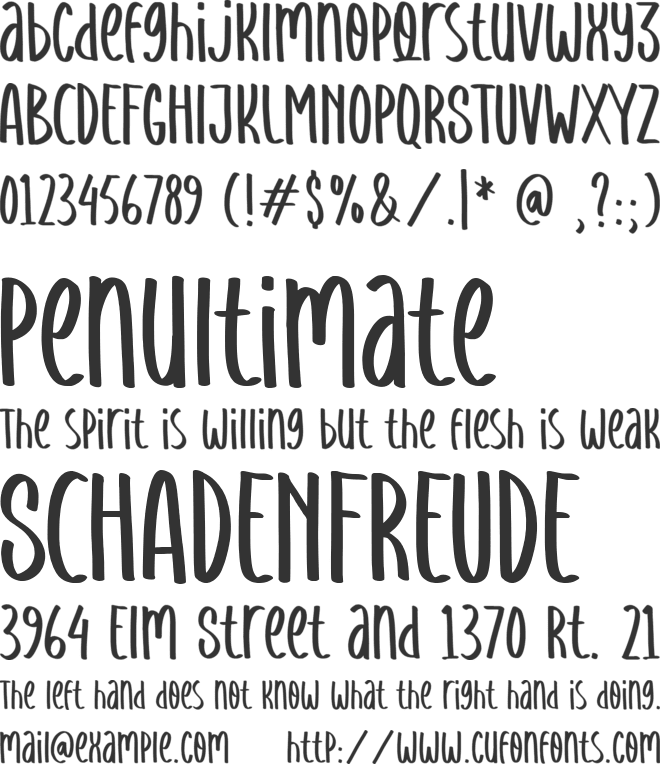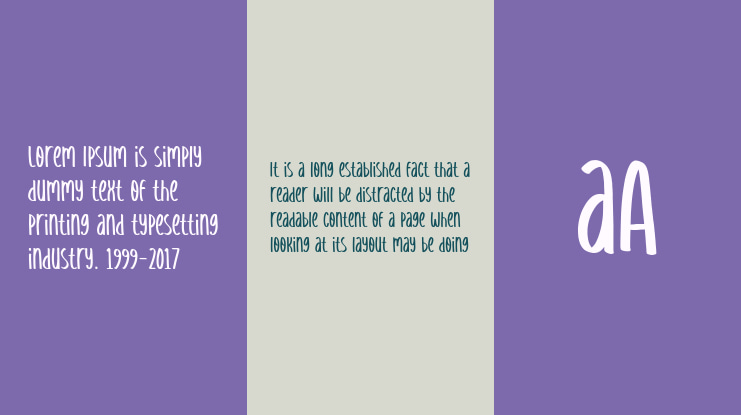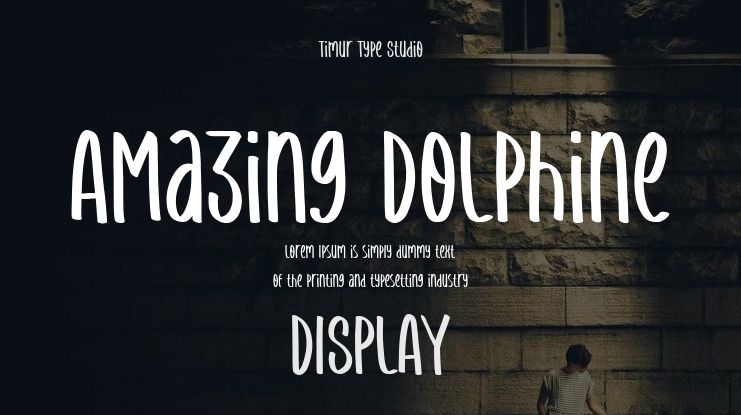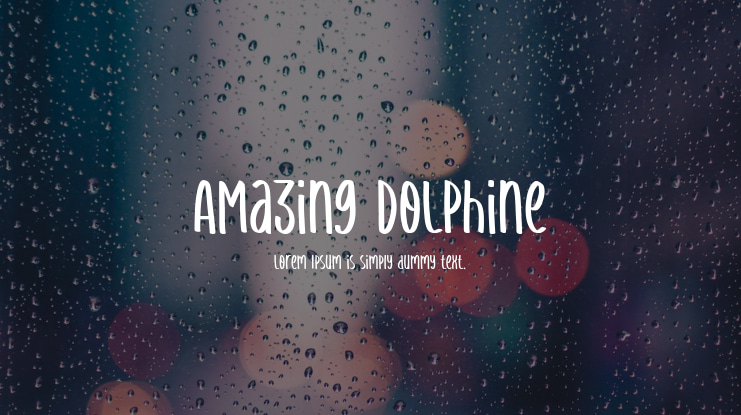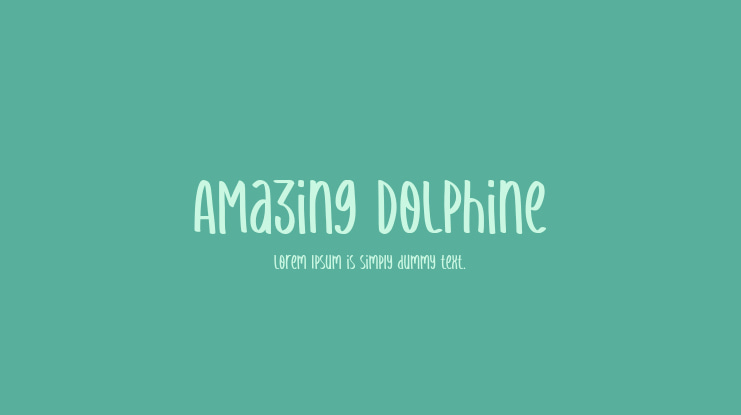
AMazing DoLphine Font
Presented by Timurtype Studio, the Amazing Dolphine font is a unique and charming handwriting display font. Its graceful strokes and playful curves give each letter a sense of movement and creativity, perfect for adding a whimsical touch to invitations, posters, and branding materials. The font's elegance combined with artistic flair makes it a visual delight, ensuring that your message stands out whether in digital or print media. The Amazing Dolphine font comes with various formats (OTF, TTF, WOFF) and supports multilingualism, offering a full set of standard alphabet and punctuation. Please note that this demo font is for personal use only, and commercial use requires purchasing the full version and appropriate license. For further inquiries or custom licenses, you can contact Timurtype Studio via email. Donations are also appreciated and can be made through their PayPal account. Explore more amazing fonts at Timurtype Studio's website. Thank you for your interest.